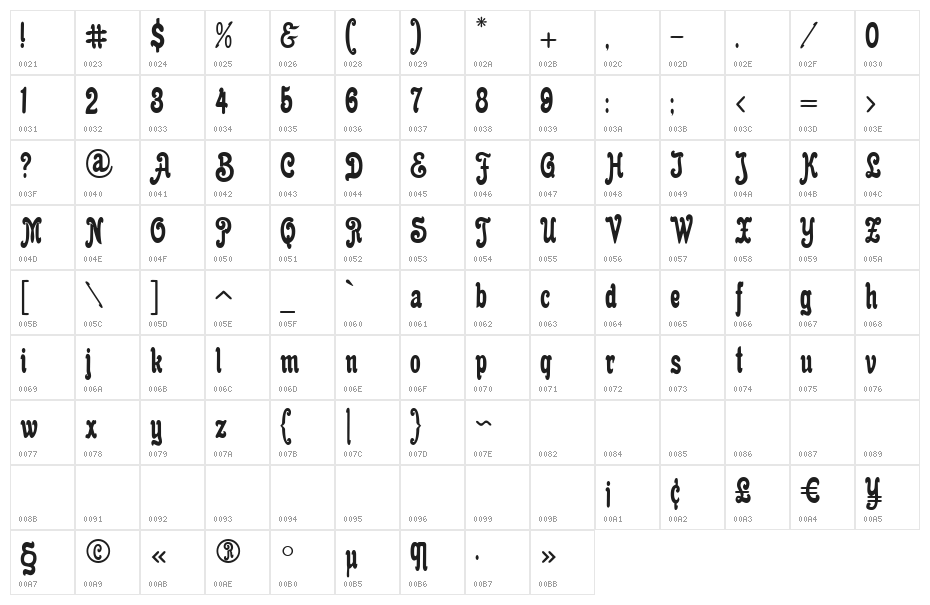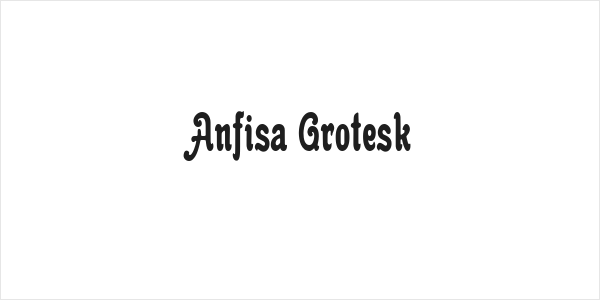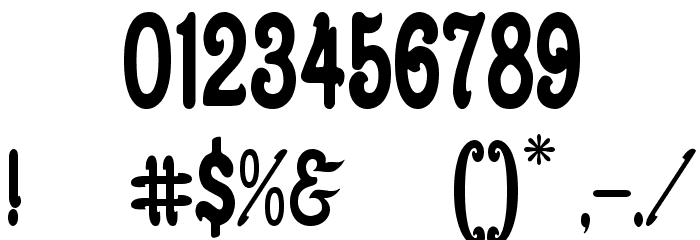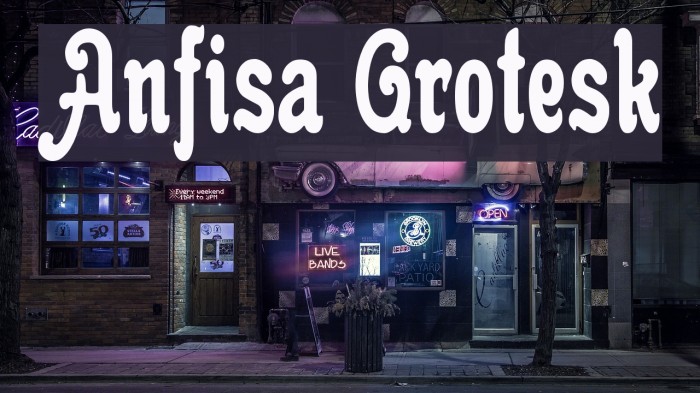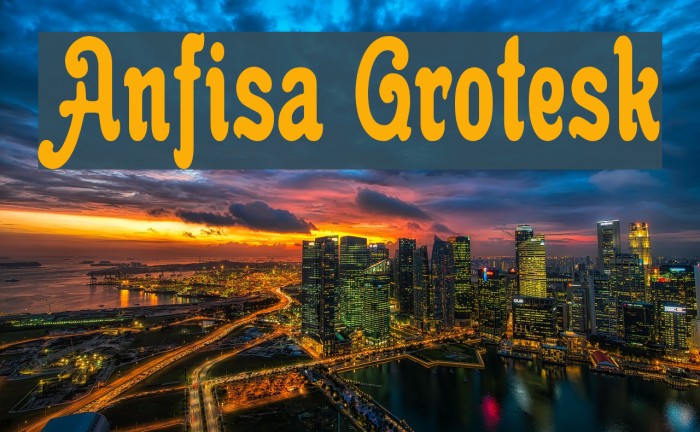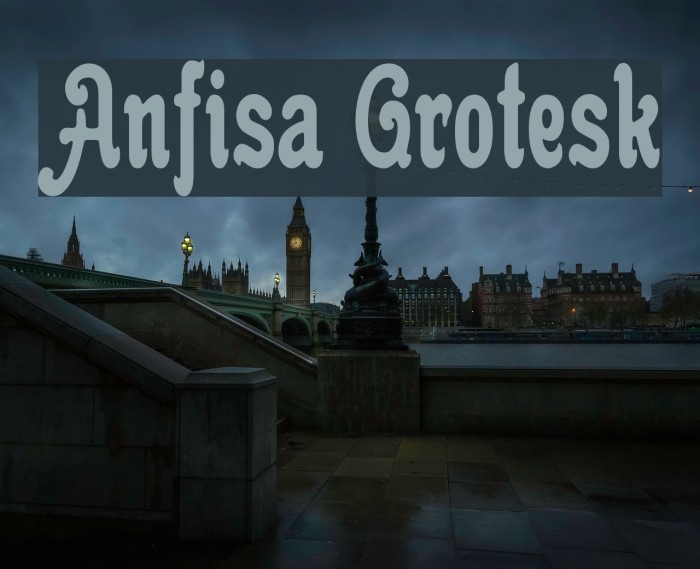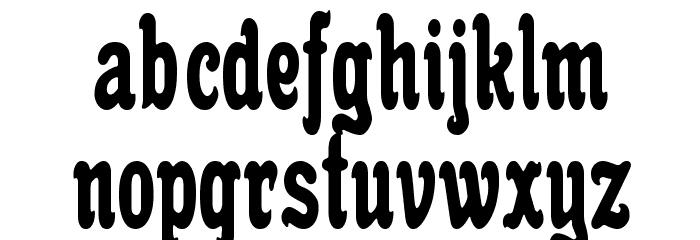
Anfisa Grotesk Font
Anfisa Grotesk Description
This font features a bold and playful design with a decorative flair. The characters are rounded and have a whimsical, almost cartoonish quality, with exaggerated curves and loops that give it a unique personality. The uppercase letters are particularly ornate, while the lowercase letters maintain a consistent style that complements the overall aesthetic. The numbers and special characters follow the same playful design, making this font suitable for creative and fun projects. Its boldness ensures it stands out, making it ideal for attention-grabbing headlines or logos.
| Overall Style | Playful, Decorative |
| Proposed Projects | Ideal for children's books, playful branding, party invitations, and creative posters. |